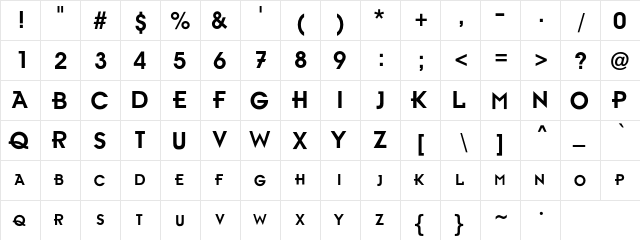
Ambient Regular
Design Context for Ambient Typeface
Ambient is a composed and adaptable typeface that performs quietly and consistently across a wide range of design contexts.
Pro Tip: Use Ambient in both headline and body roles to test its range before committing to a single application.